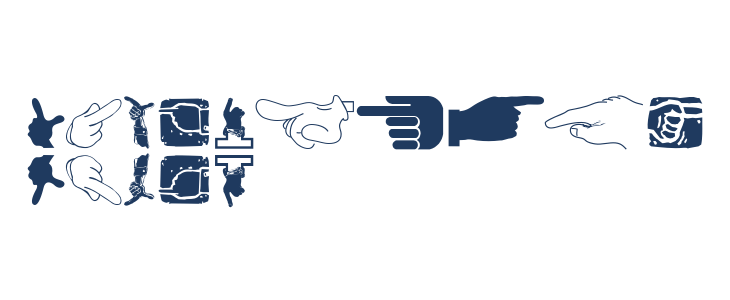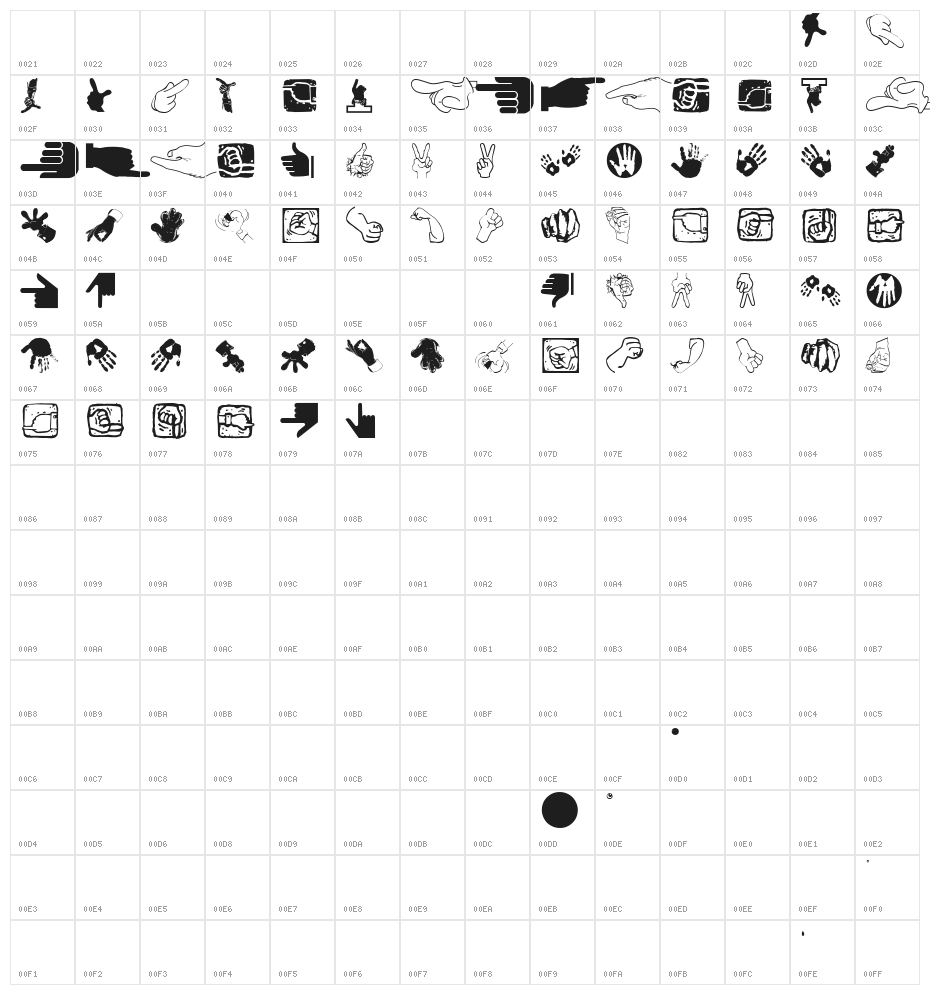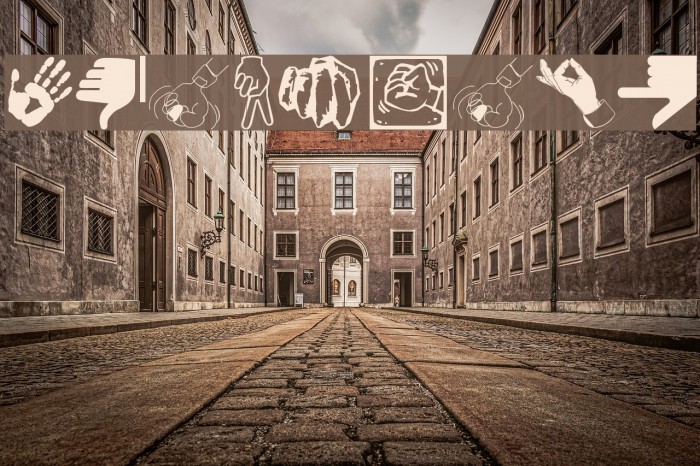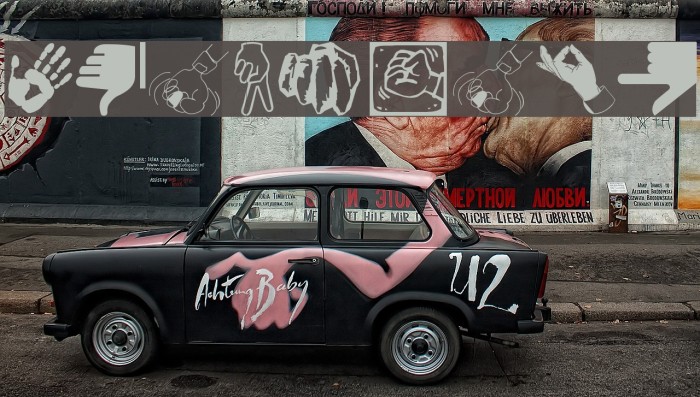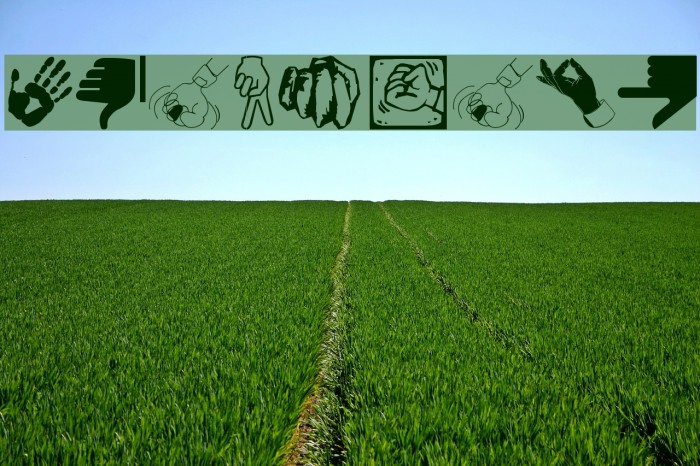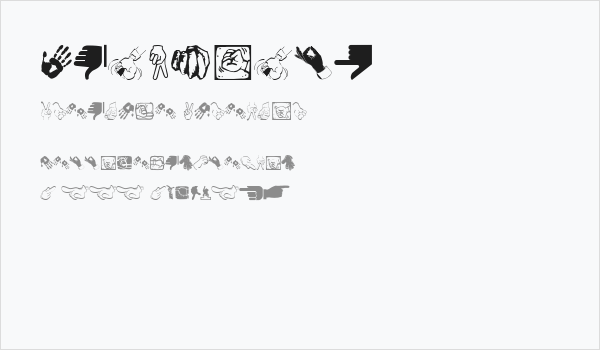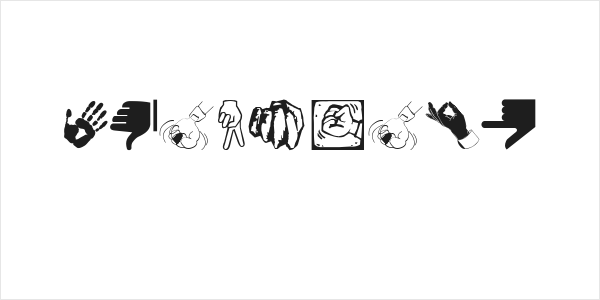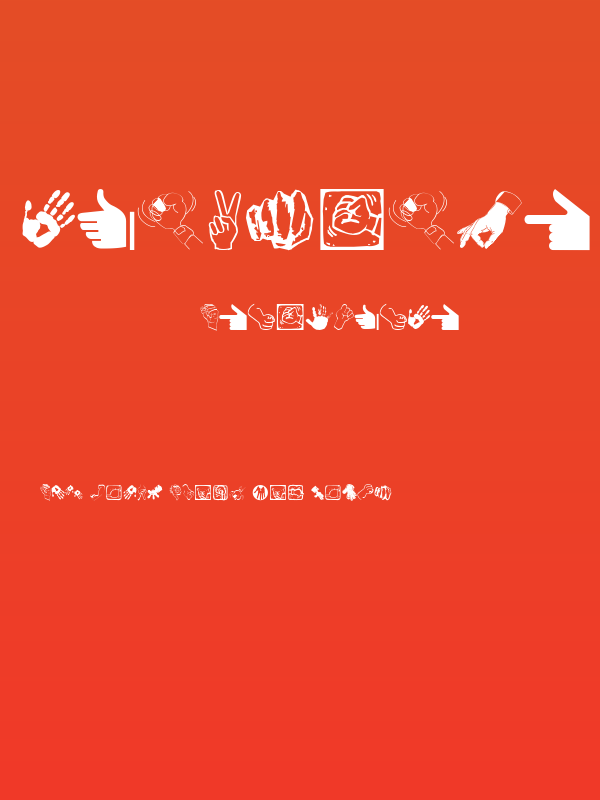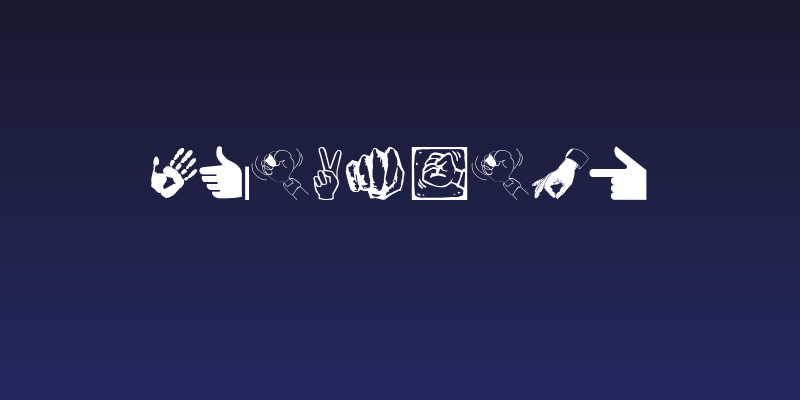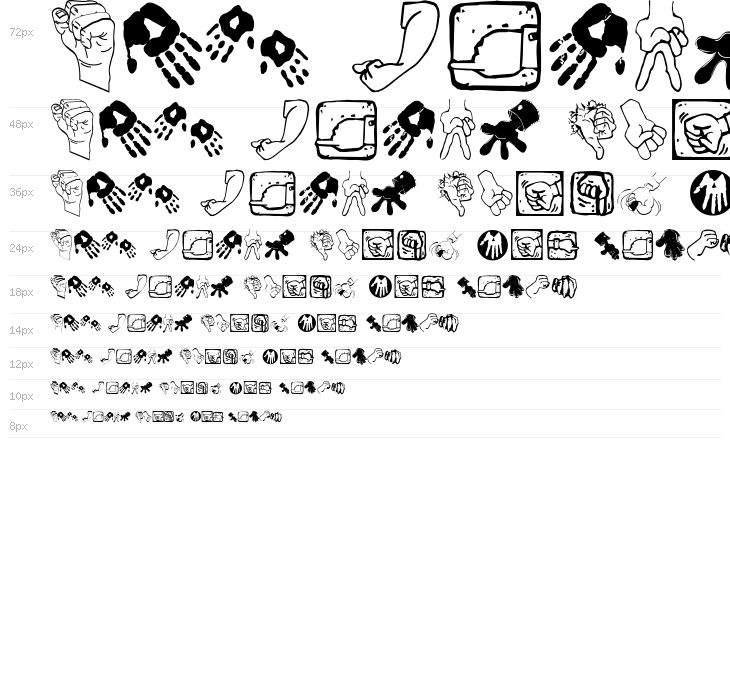
HandsOnly Font
HandsOnly Description
This is a decorative font composed entirely of hand illustrations, each representing different gestures and signs. The characters are creatively designed to depict various hand positions, from thumbs up to peace signs, and even pointing fingers. The style is playful and artistic, with a mix of solid and outlined designs. The font lacks traditional letterforms, focusing instead on conveying messages through visual hand symbols. It's a unique and expressive way to communicate, ideal for projects that require a touch of whimsy and creativity.
| Use Case | Logos, Posters, Creative Displays |
| Proposed Projects | Ideal for creative projects like posters, greeting cards, or educational materials that focus on sign language or non-verbal communication. |